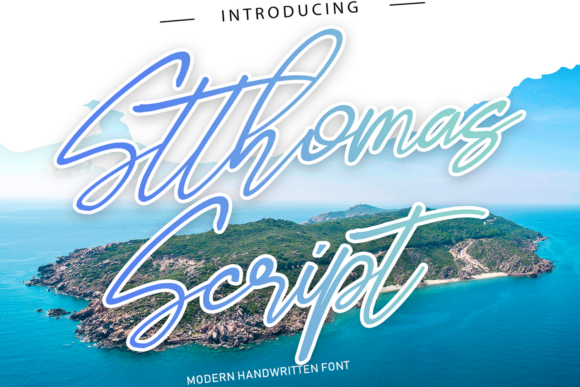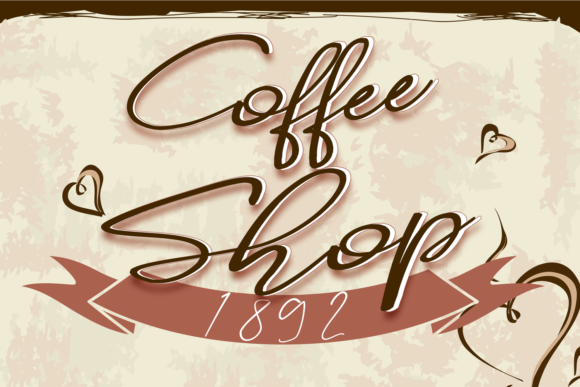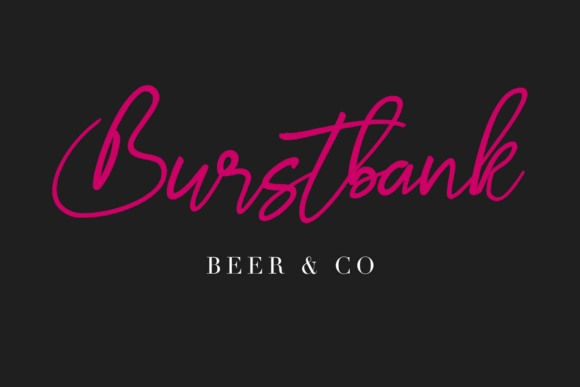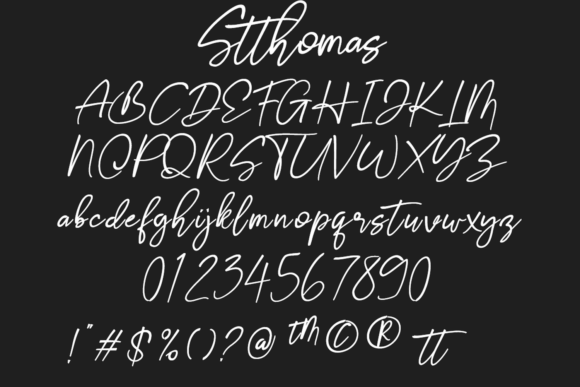
Stthomas Script Font
About Stthomas Script Font
Stthomas Script is an elegant and flowing font. It looks stunning on wedding invitations, thank you cards, quotes, greeting cards, logos, business cards and every other design which needs a handwritten touch.